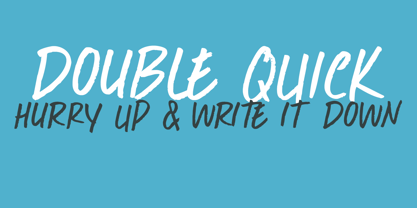
Double Quick
by Hanoded
About Double Quick Font Family
Double Quick is a fast, handwritten font with excellent legibility. It was designed to look like a quick grocery list, a hasty 'I Love You' note penned down on a Post-it or a home improvement to-do list. Comes with extensive language support.
Designers: David Kerkhoff
Publisher: Hanoded
Foundry: Hanoded
Design Owner: Hanoded